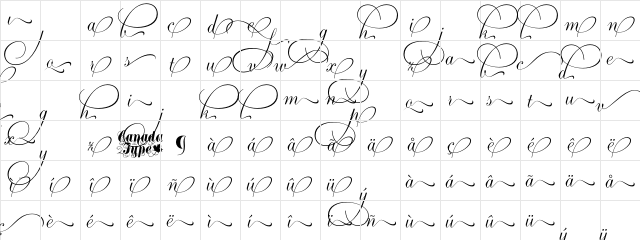
Ambassador Script Ends III Regular
| Foundry | Canada Type |
| Designer | Rebecca Alaccari |
Design Context for Ambassador Script Ends III Typeface
Ambassador Script Ends III brings a calligraphic fluidity to the page — its connecting strokes and expressive curves give it an unmistakably human quality.